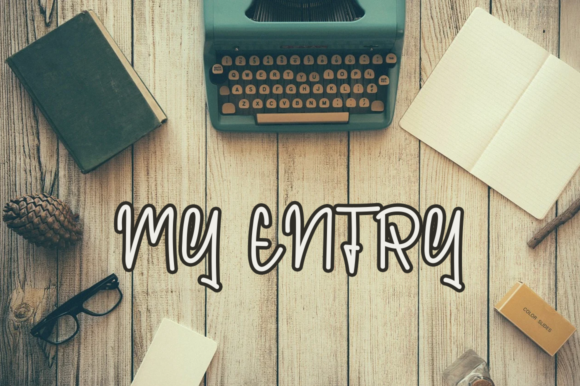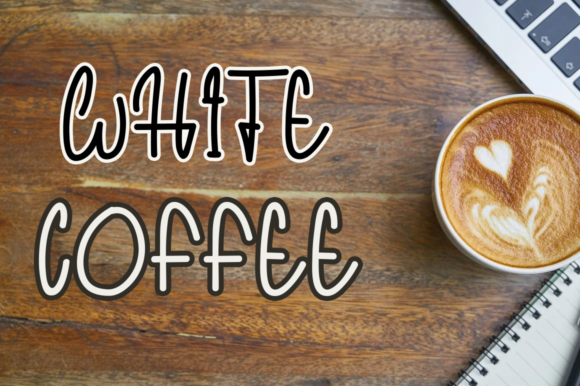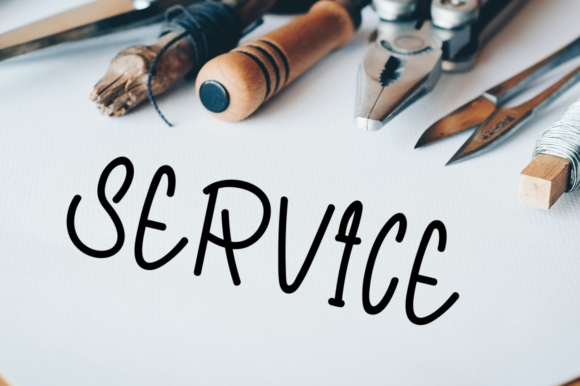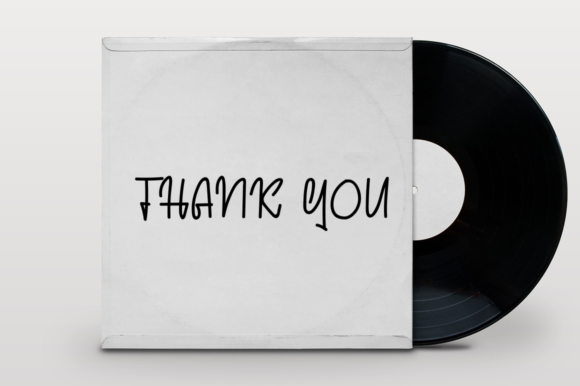
Handmade Valentine Font
About Handmade Valentine Font
Handmade Valentine is a whimsical, thin lettered and fresh handwritten font. Its natural and unique style makes it incredibly fitting to a large pool of designs. The only limit is your imagination!